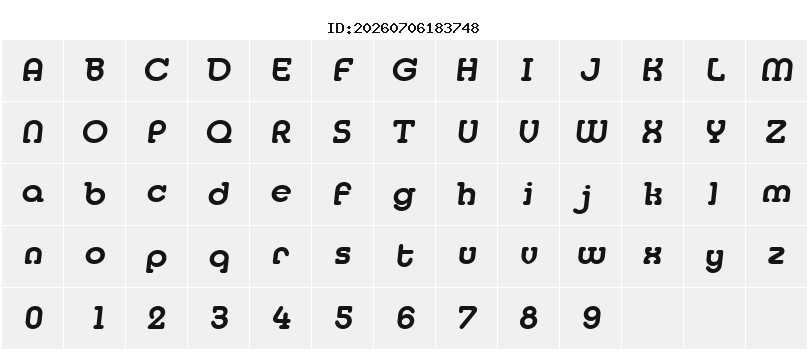
• Font Name: DesireeBeckerMedium
• Full Font Name: DesireeBeckerMedium Italic
• PostScript Name: DesireeBeckerMedium-Italic
About DesireeBeckerMedium.ttf
DesireeBeckerMedium.ttf is a modern, elegant sans-serif font designed for ultimate readability and visual harmony. Perfect for branding, headlines, web design, and print materials.